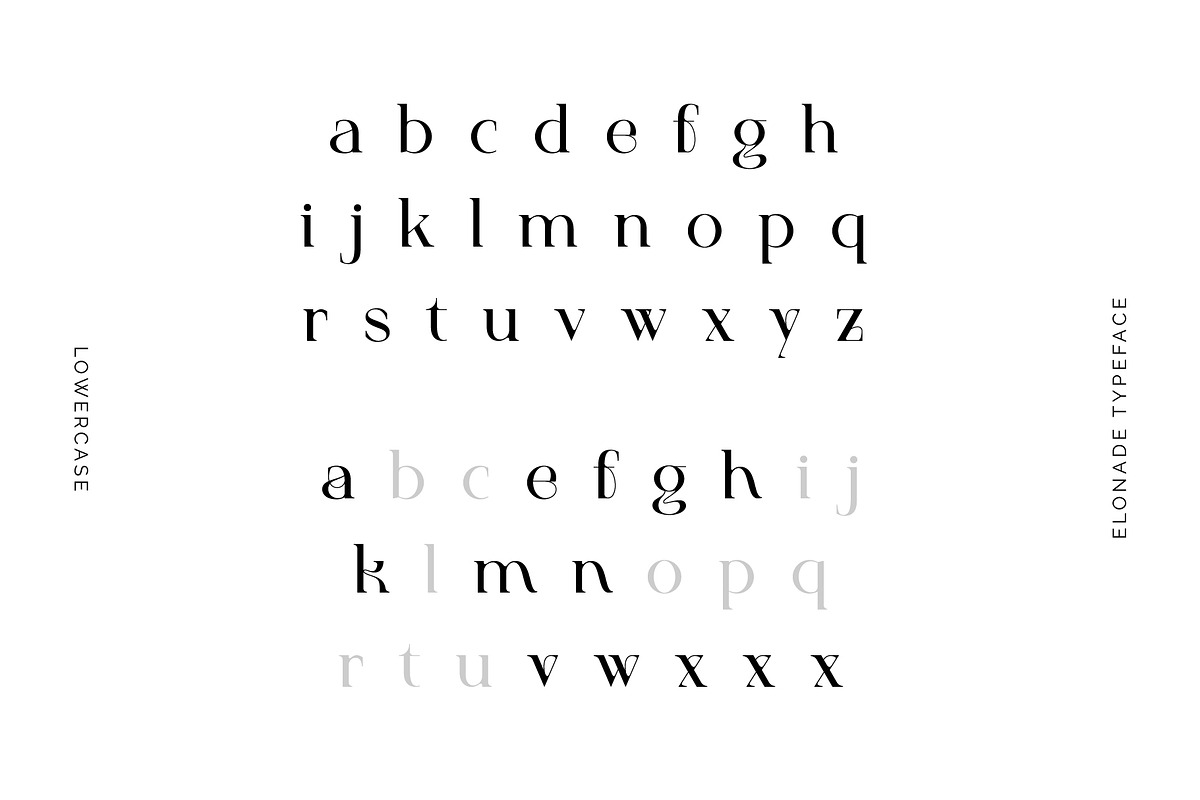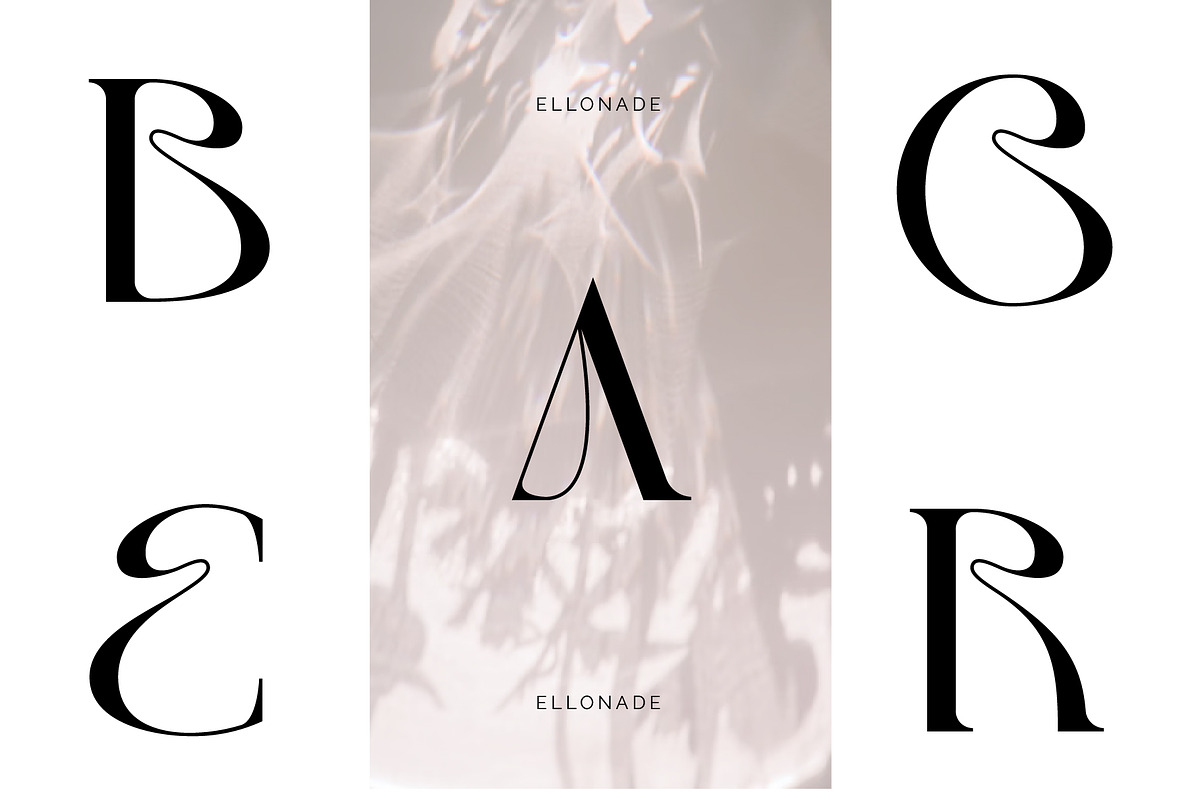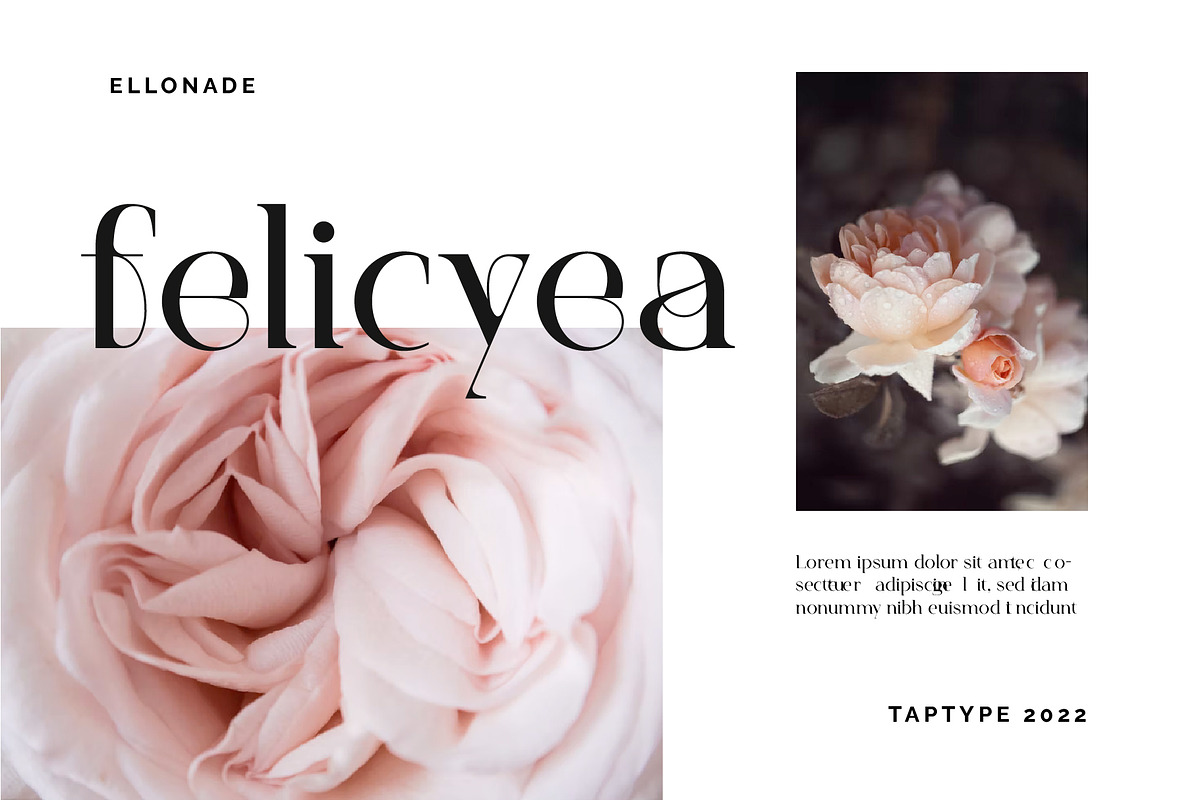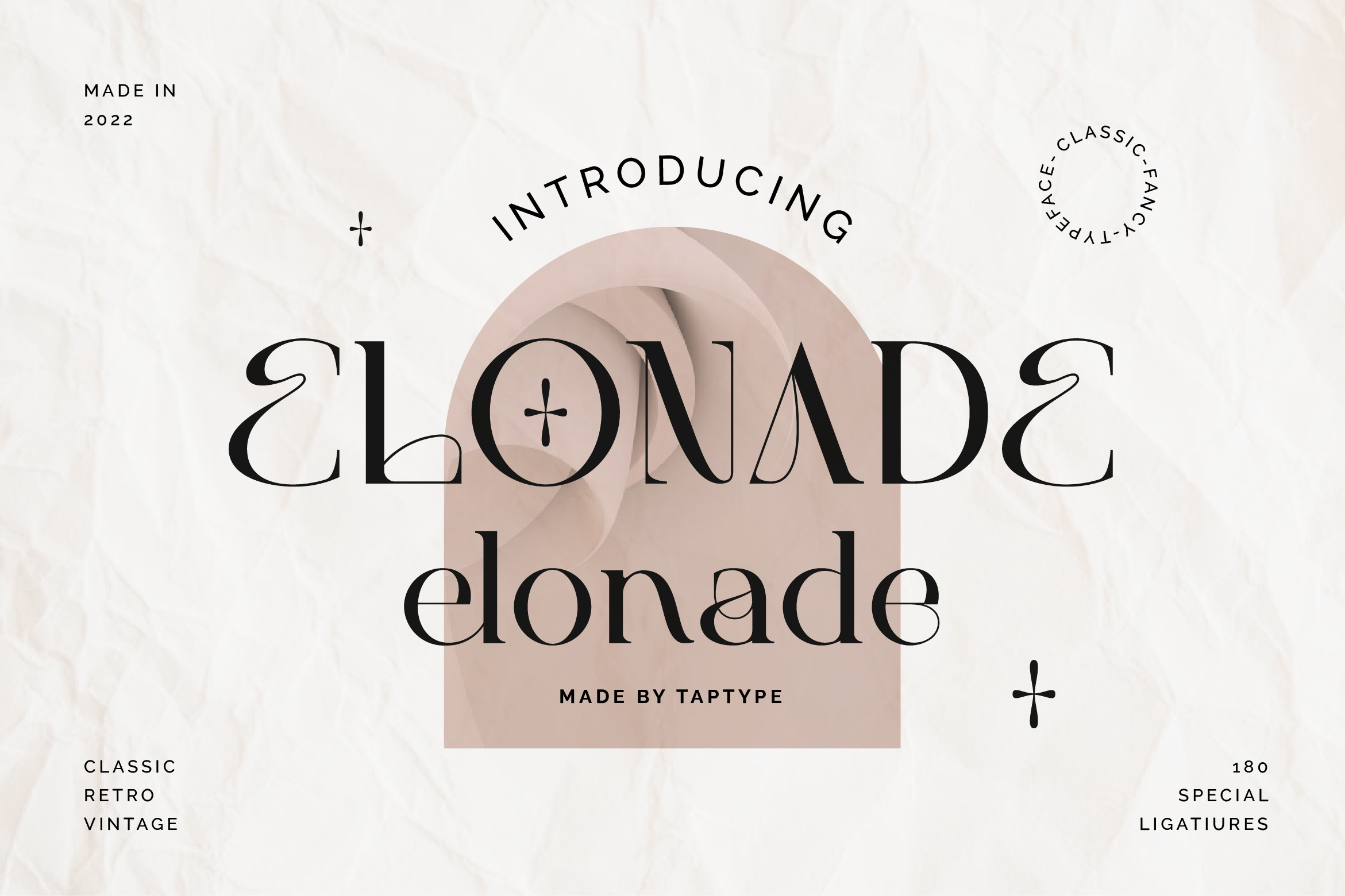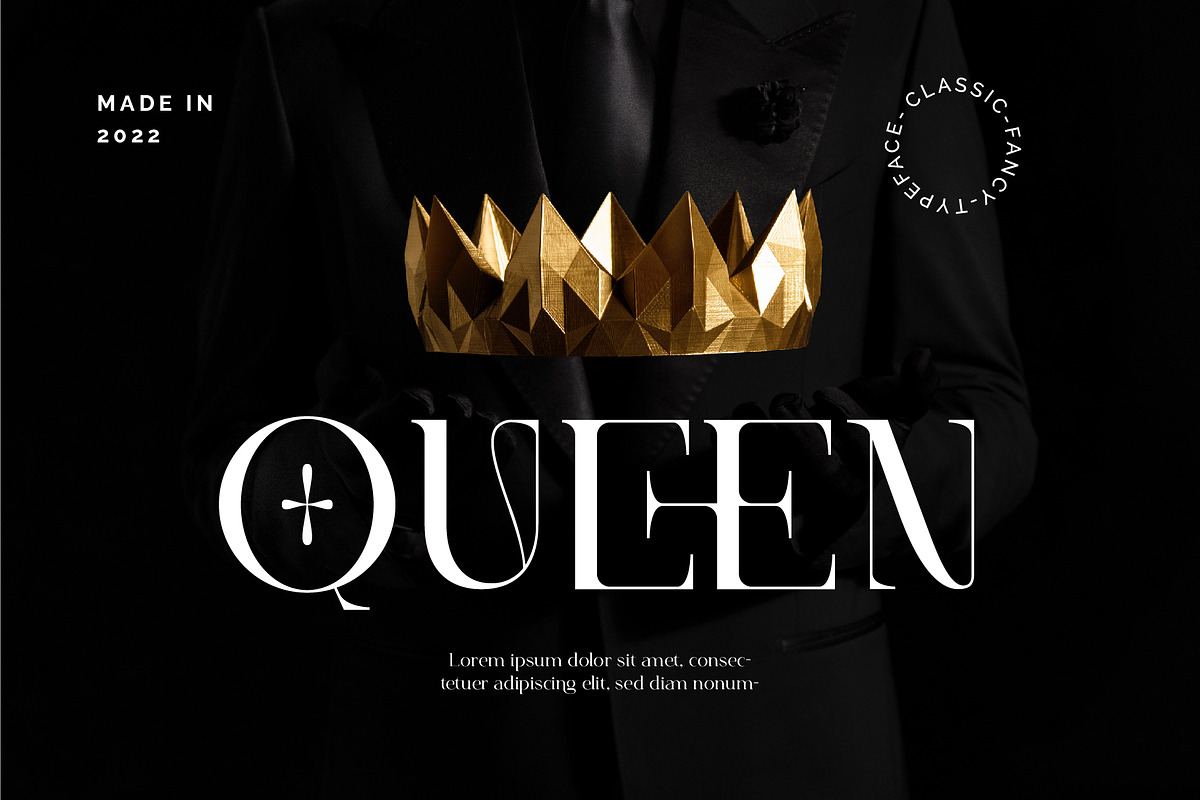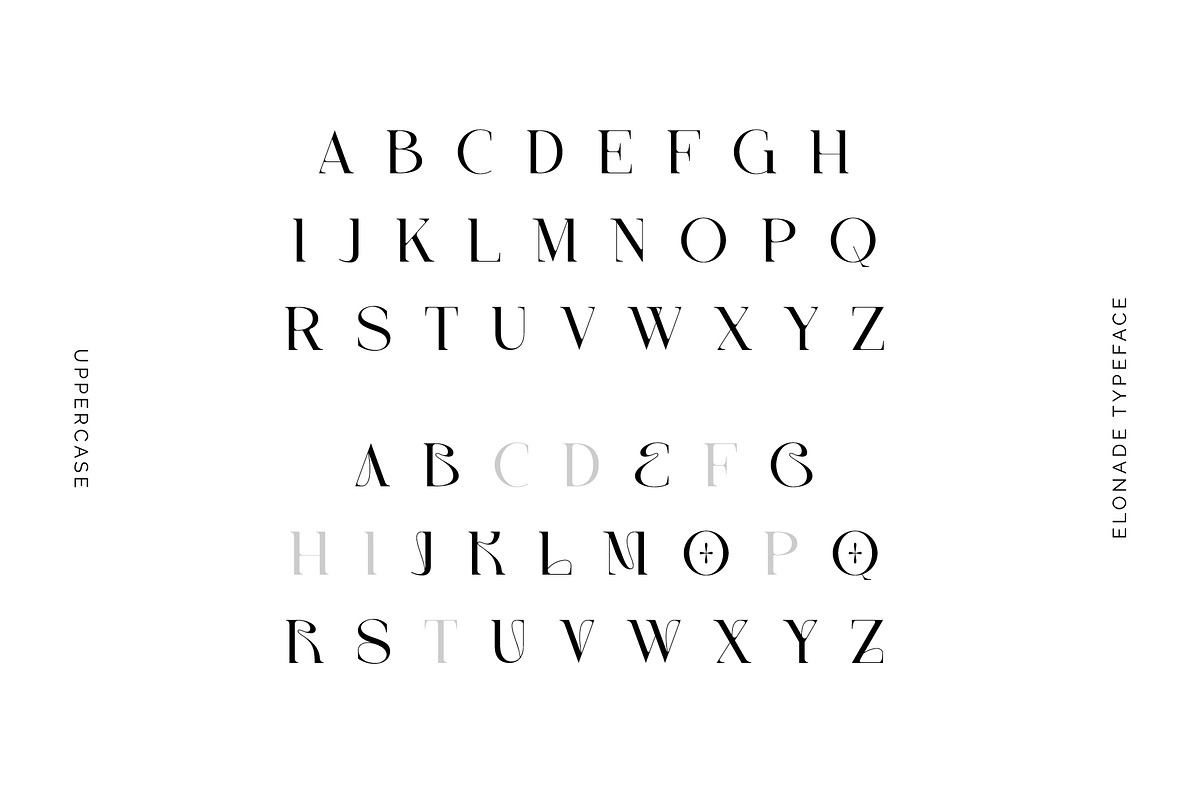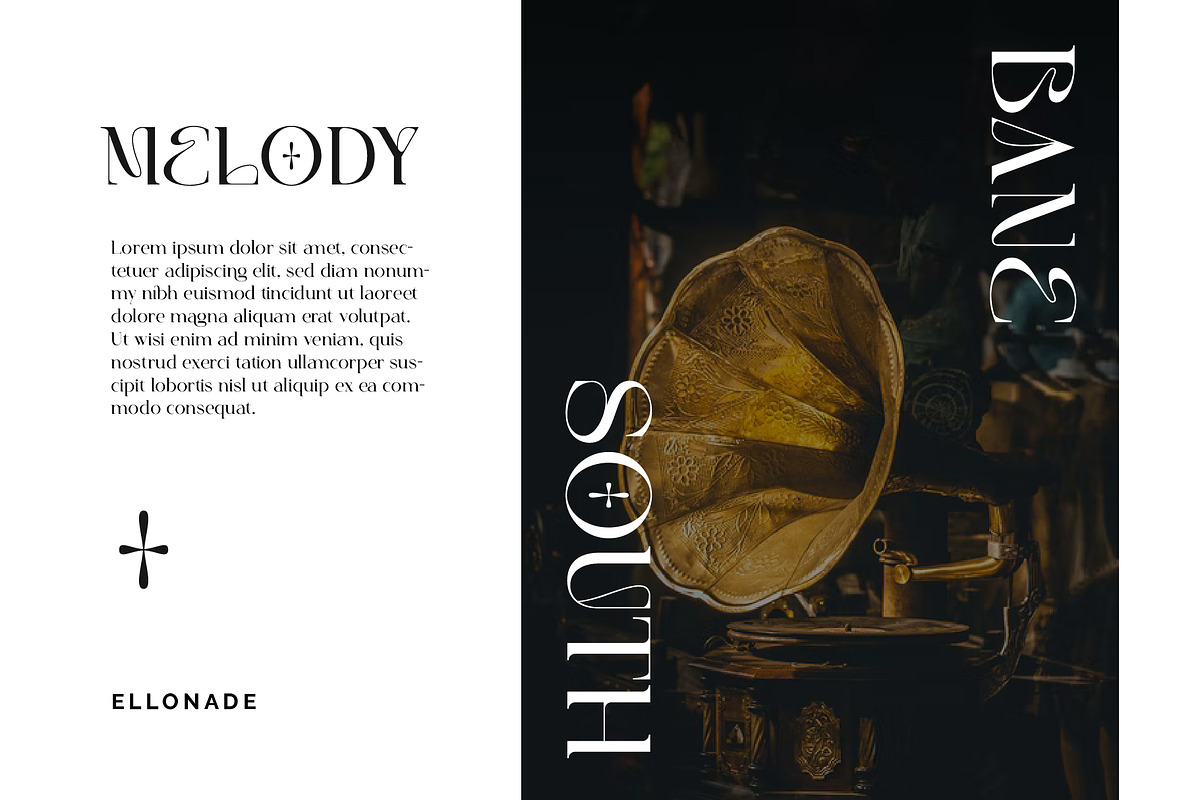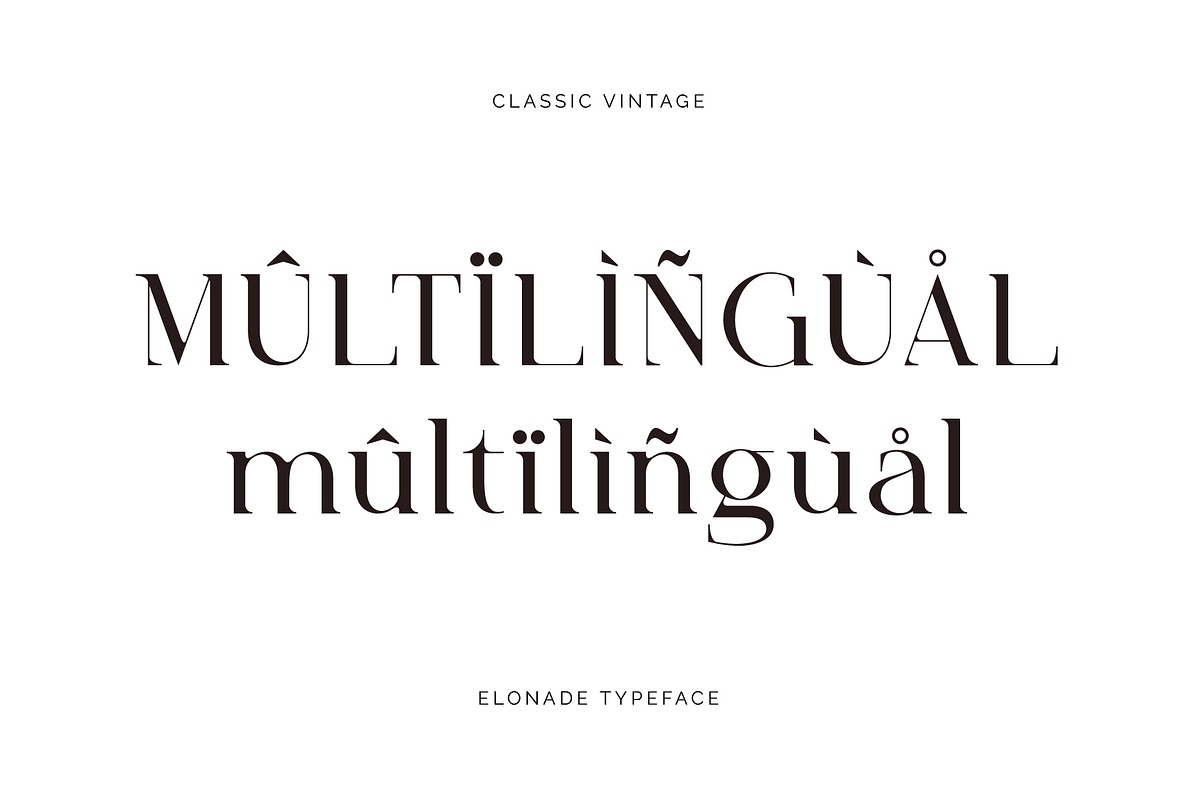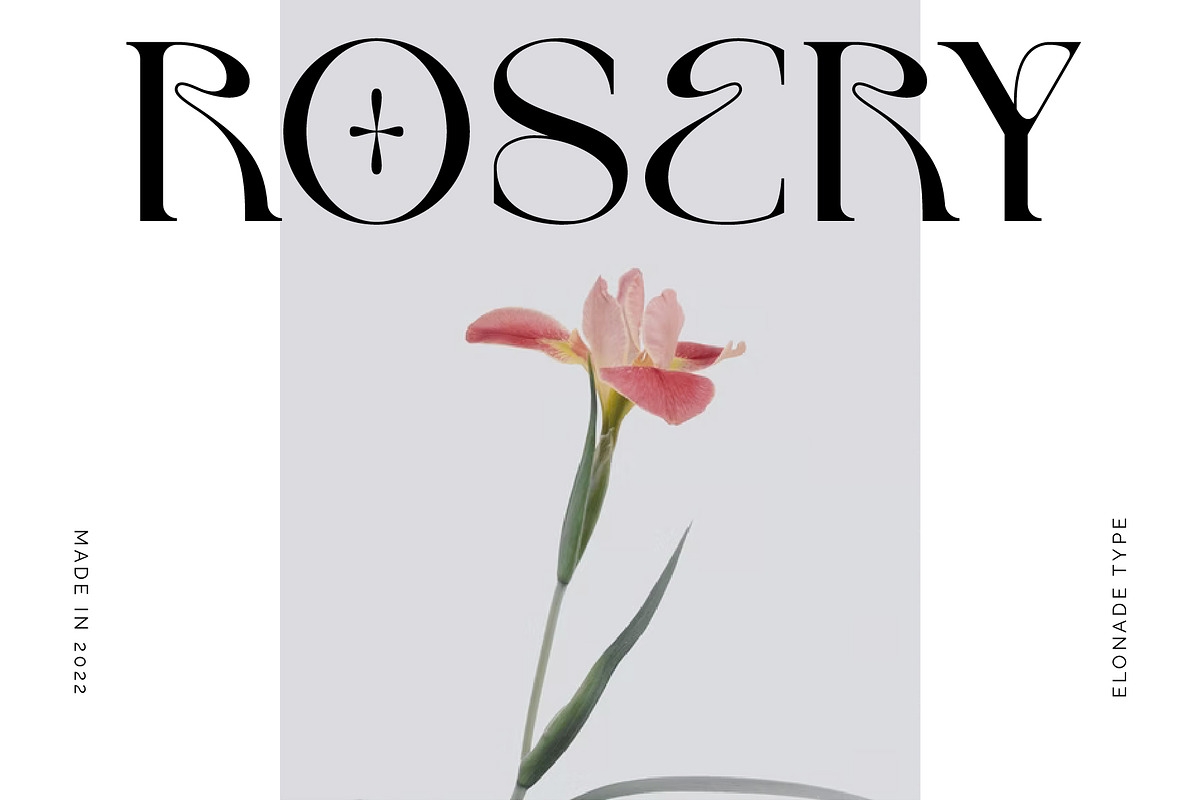
Elonade - Classic Serif Display Font
Elonade is a stylish modern font Serif. Minimalist character that allowing you to easily edit the designs. It is perfect for branding, wedding invites and cards, and maybe for some project.
- 180 Special ligatures